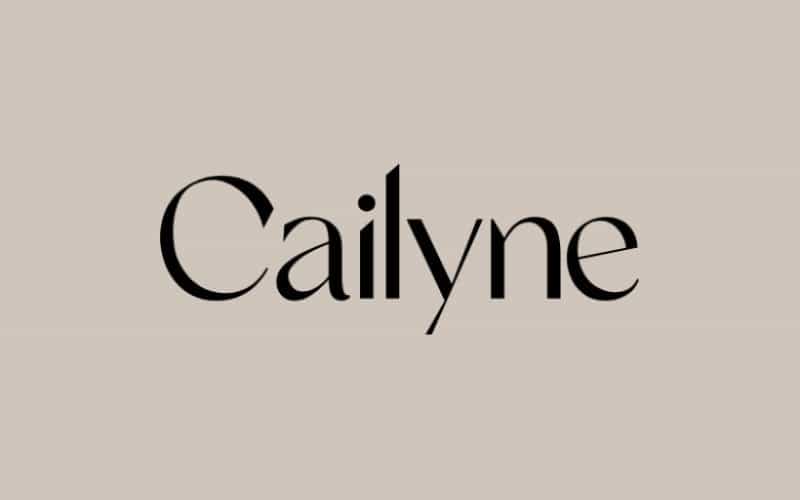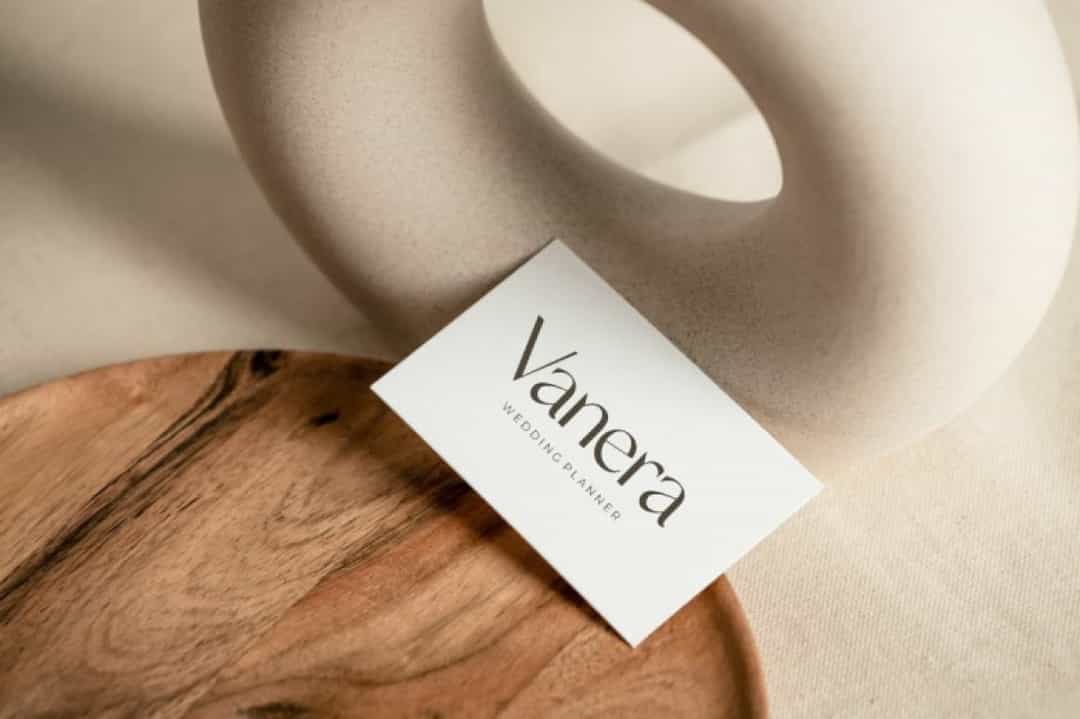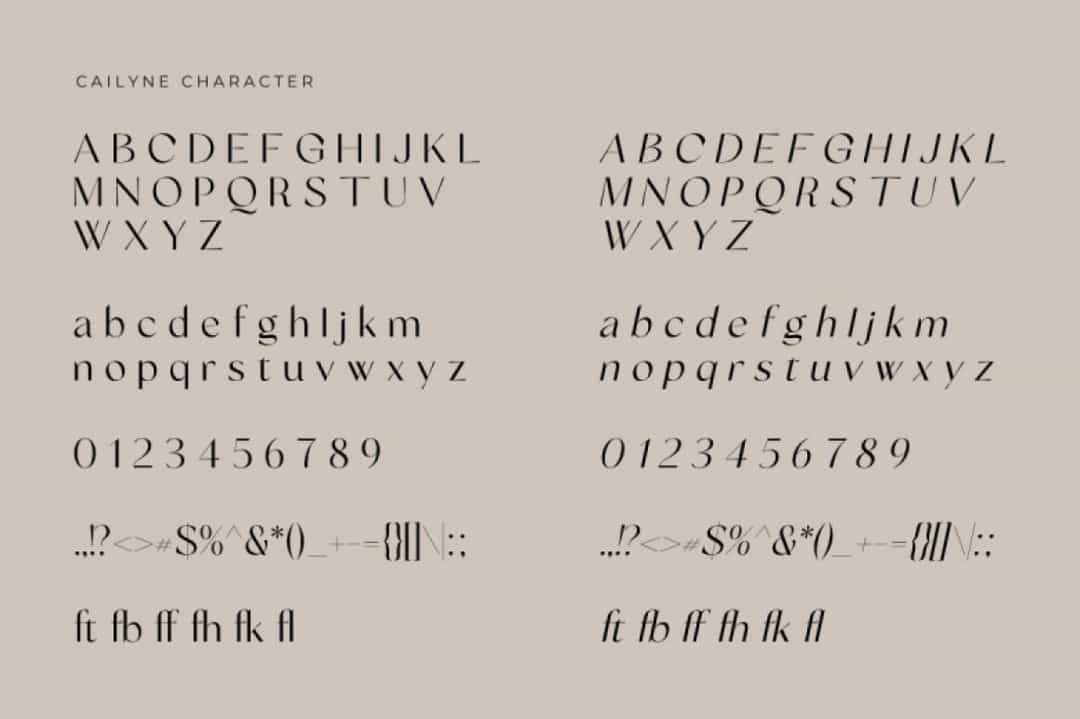
Cailyne is a contemporary and elegant Serif Font that comes with both regular and italic versions, featuring contemporary appearance and feel that makes it ideal for projects requiring elegance – such as headlines, logos, or signage.